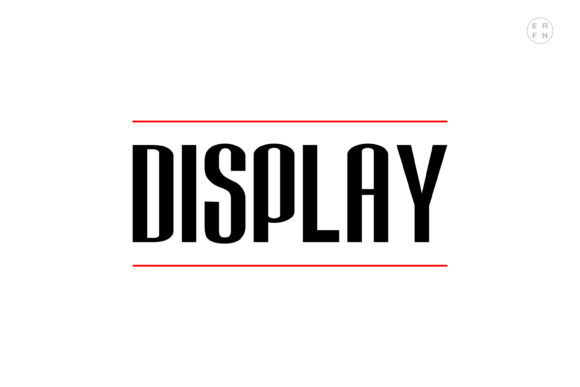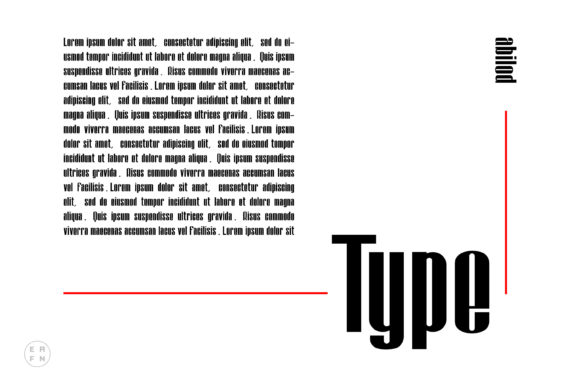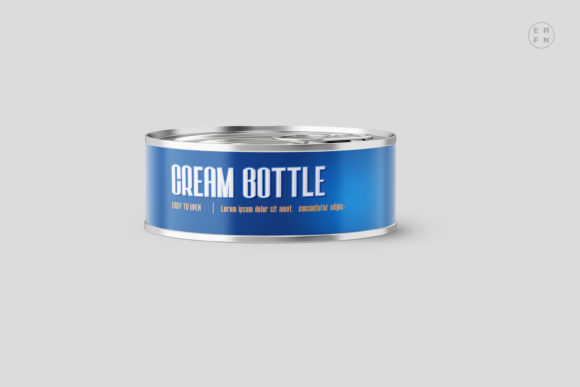
The Abilode Font: A Modern, Cool, and Adaptable Display Font
I’ll never forget the moment I stumbled upon the Abilode font while working on a futuristic web design project. My client wanted a sleek, modern look that would make their brand stand out, but I was struggling to find the perfect font. That’s when I discovered Abilode, and it instantly became the perfect fit. In this article, I’ll share my experience with this amazing font, its features, and how to make the most of it in your designs.
An Honest Review of Abilode Font
What I Love About Abilode Font
- ✨ Modern and Cool Design: Abilode has a sleek, contemporary look that’s perfect for creating a futuristic vibe in your designs.
- ✅ Adaptable: This font is incredibly versatile and works well for a wide range of design projects, from web designs to business cards.
- 💡 OpenType Features: Abilode supports OpenType features, which allow for advanced typographic control and customization.
- 🎨 Stylistic Alternates: The font comes with a range of stylistic alternates, giving you even more creative freedom.
While Abilode is an excellent font, there are a few minor quirks to be aware of:
- 🤔 Limited Use in Body Text: Due to its modern, display-focused design, Abilode might not be the best choice for lengthy body text. It’s ideal for headings and titles.
- ⚠️ Glyph Support: Some users have reported that certain glyphs or special characters might not be supported. Always test the font with your specific text requirements.
The Story Behind Abilode Font
Abilode was designed with the goal of creating a modern, adaptable display font that could be used in a wide range of design projects. The designer aimed to craft a font that would be both futuristic and elegant, making it perfect for brands looking to make a statement.
Q: What is Abilode font best used for?
A: Abilode font is ideal for display purposes, such as headings, titles, and web designs, where a modern and cool look is desired.
Q: Does Abilode support OpenType features?
A: Yes, Abilode supports OpenType features, which allow for advanced typographic control and customization.
Q: Is Abilode suitable for body text?
A: While Abilode is an excellent font, it’s primarily designed for display purposes. For lengthy body text, you may want to consider a more traditional font.